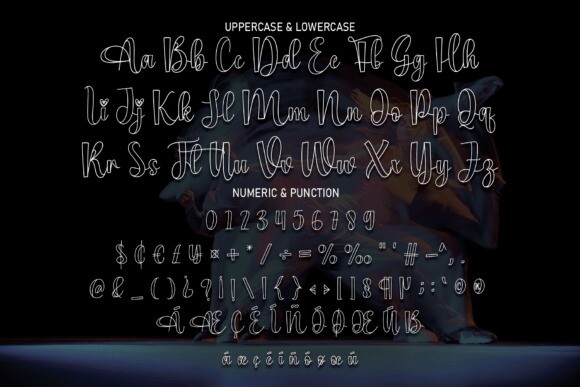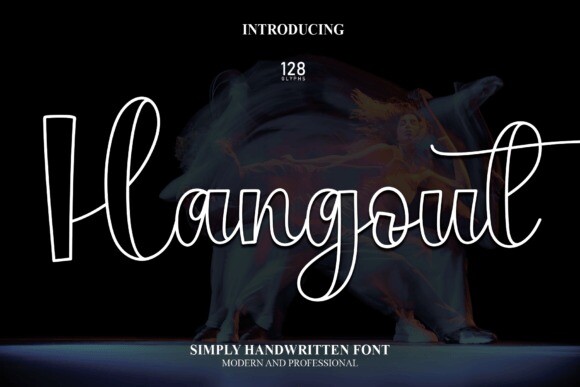
Hangout Script Font
Hangout Script Font is an exquisite handwritten font, masterfully designed to become a true favorite. It maintains its classy calligraphic influences while feeling contemporary and fresh. Fall in love with it and bring your projects to the highest levels!